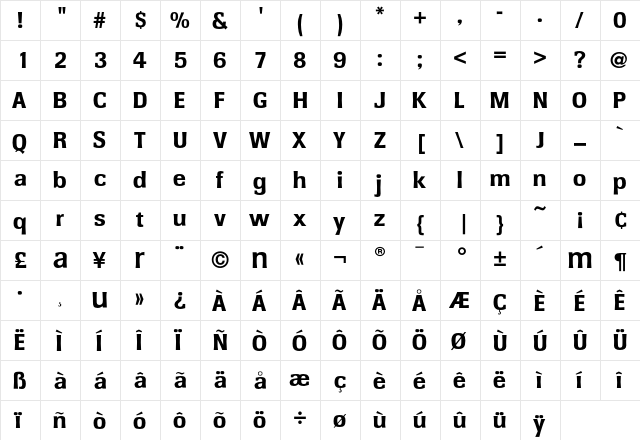
Cartel-Dem i
Design Context for Cartel-Dem Typeface
Cartel-Dem offers clean, dependable letterforms without strong stylistic allegiance, making it a practical choice for designers who need flexibility.
Pro Tip: Use Cartel-Dem in both headline and body roles to test its range before committing to a single application.